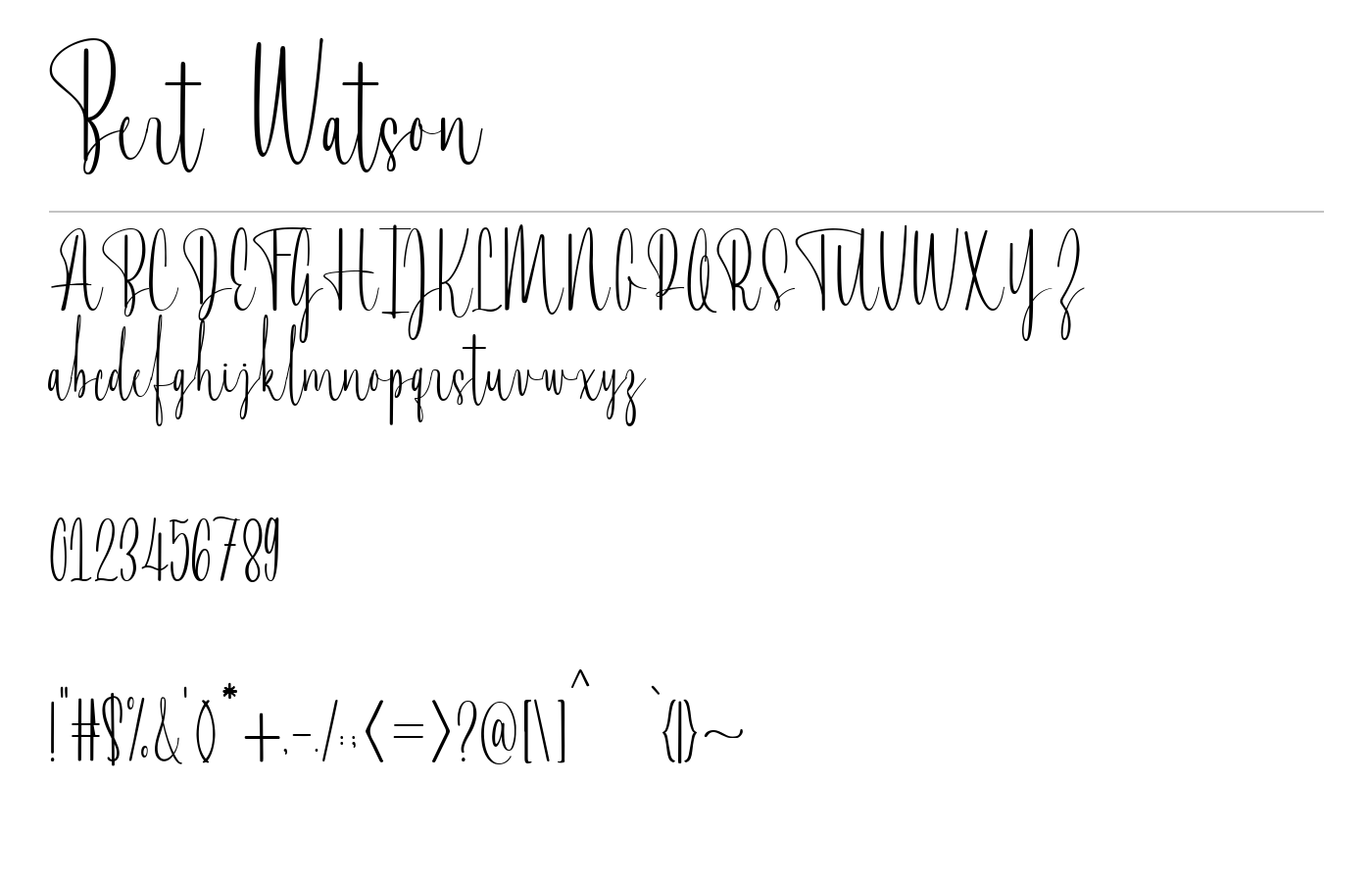
Bert Watson is a delicate, elegant script font featuring tall, slender letterforms with playful, handwritten charm. Its thin strokes and high x-height create a light, airy feel that is perfect for invitations, branding, and creative designs seeking a personal and stylish touch. This font works best in larger sizes where its unique character and refined details can truly shine.
Bert Watson Font
About Bert Watson Font
| Font family | Bert Watson Font |